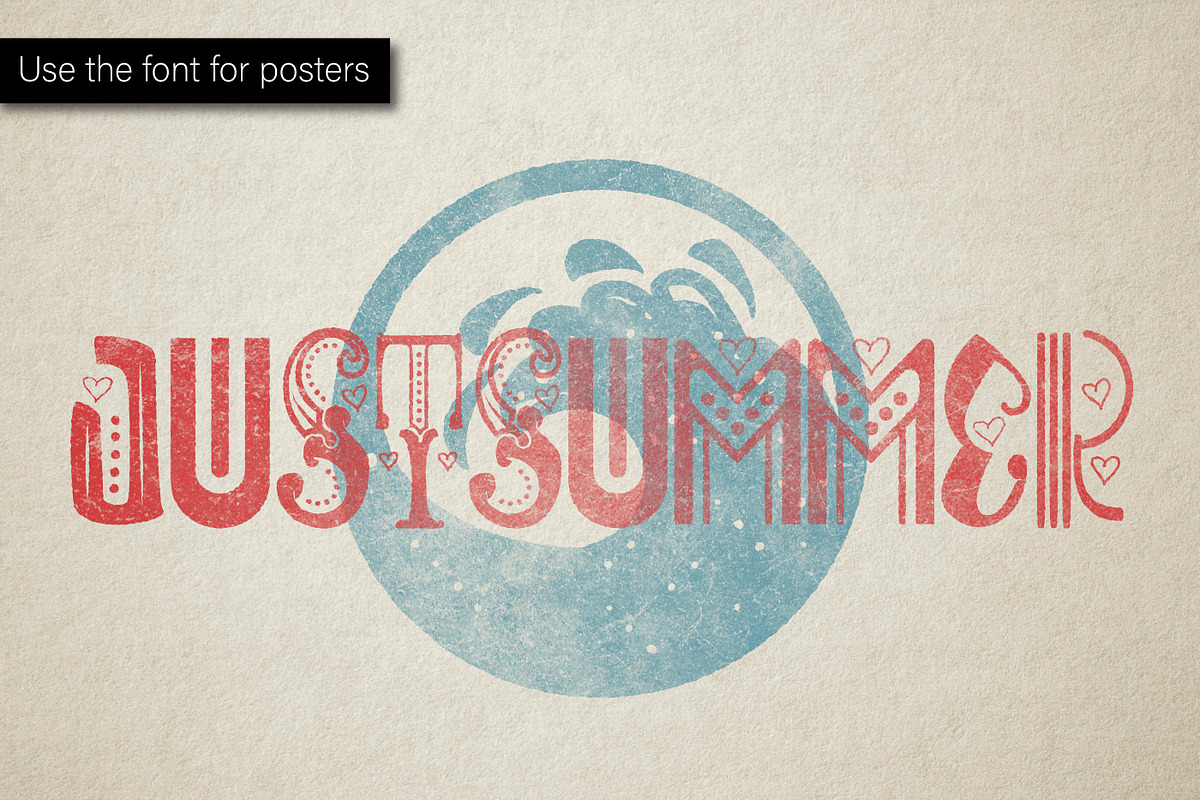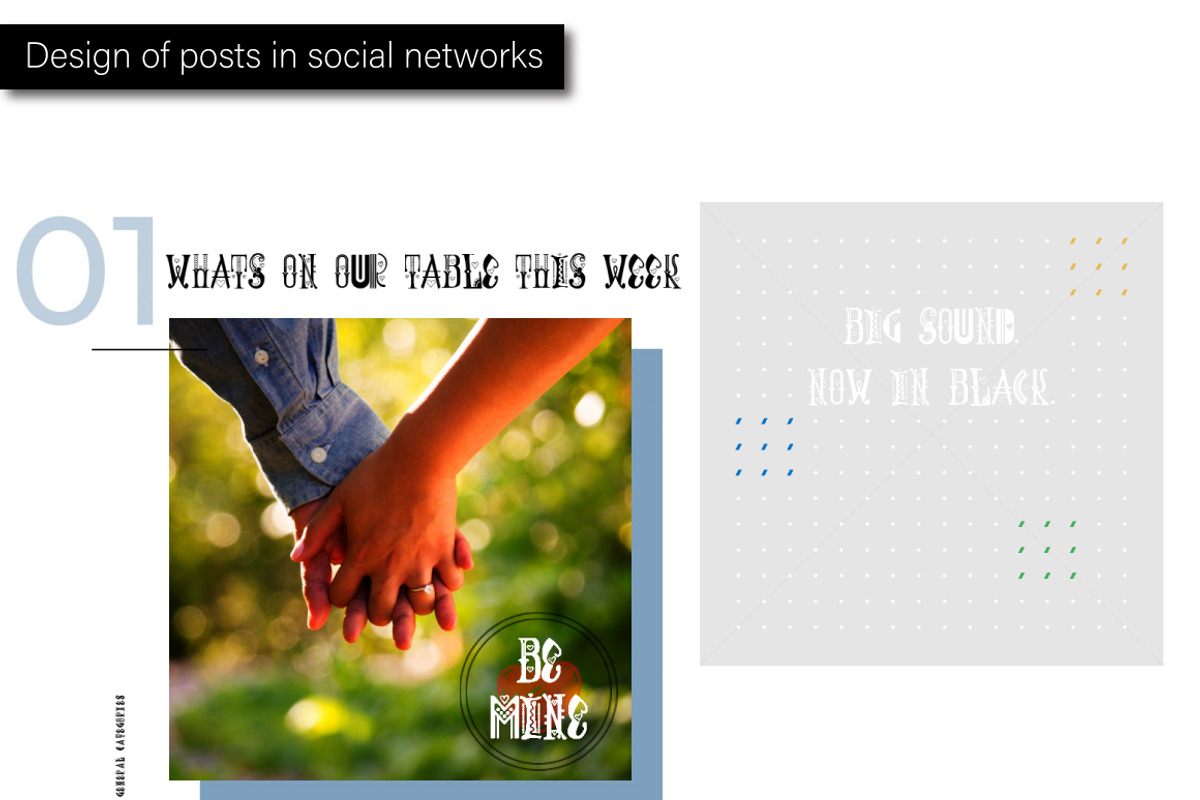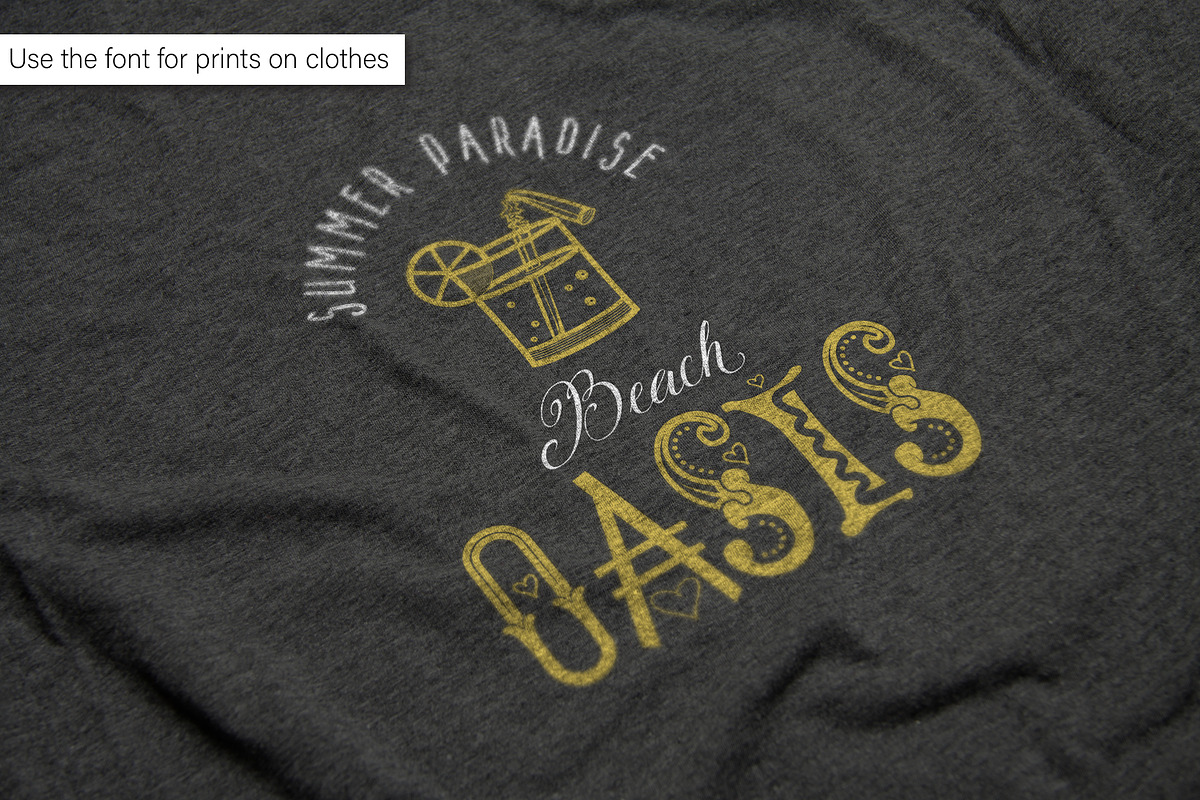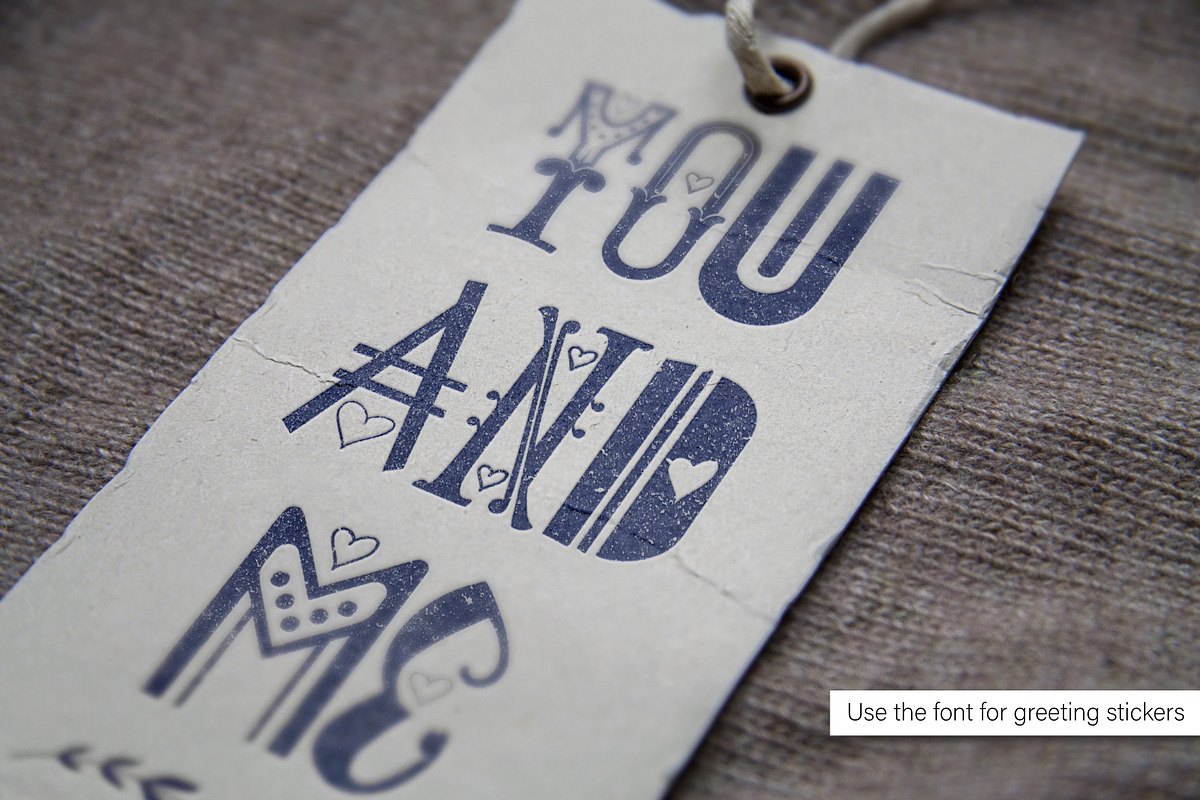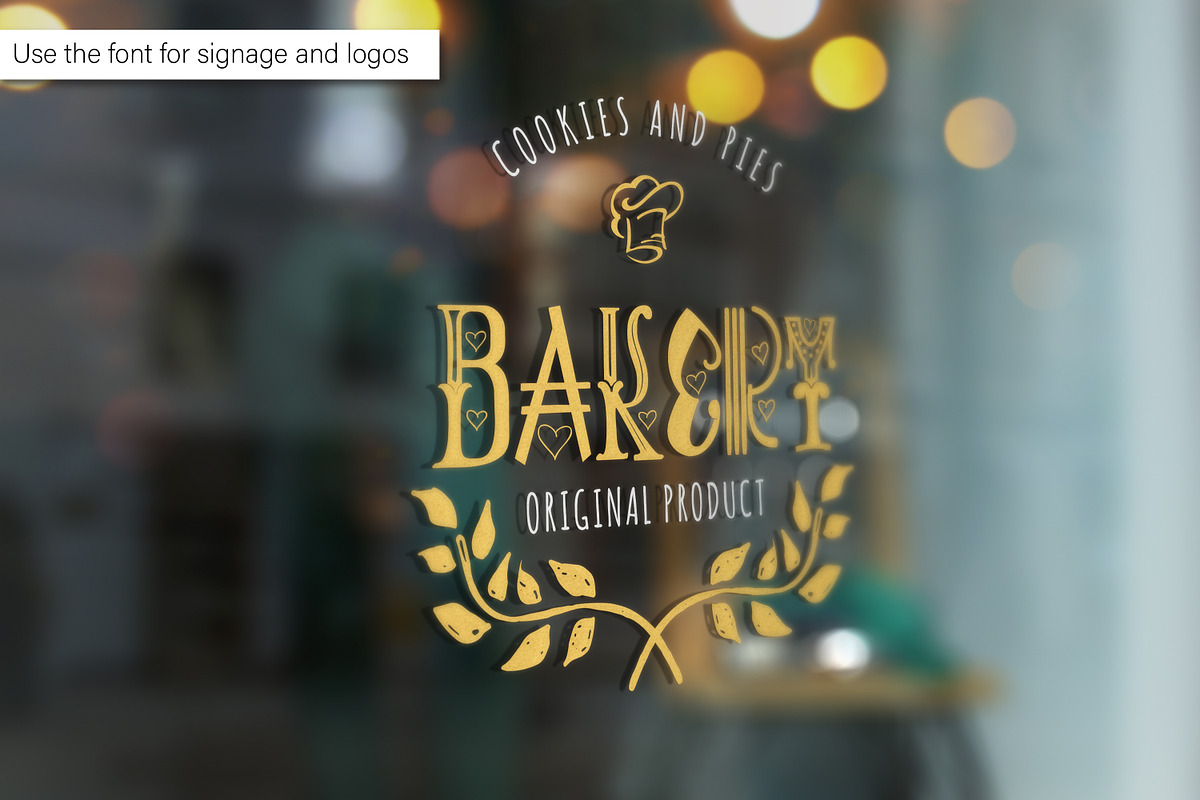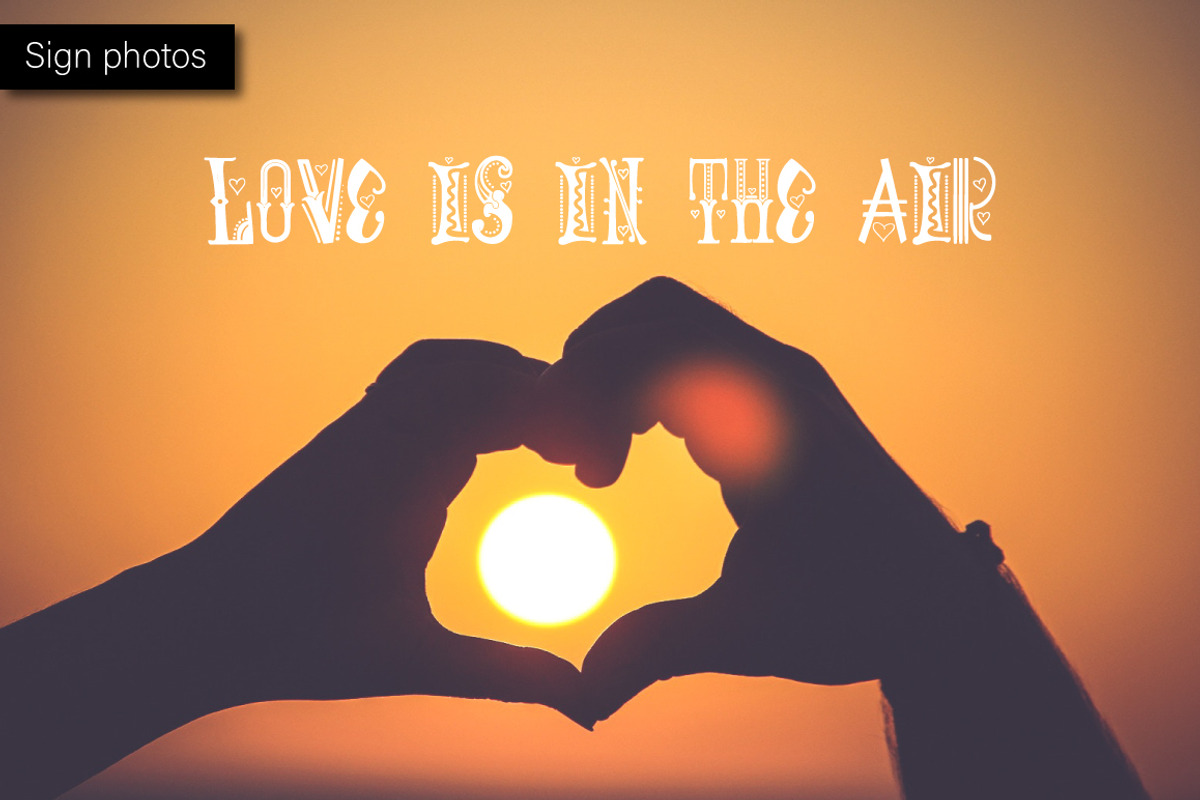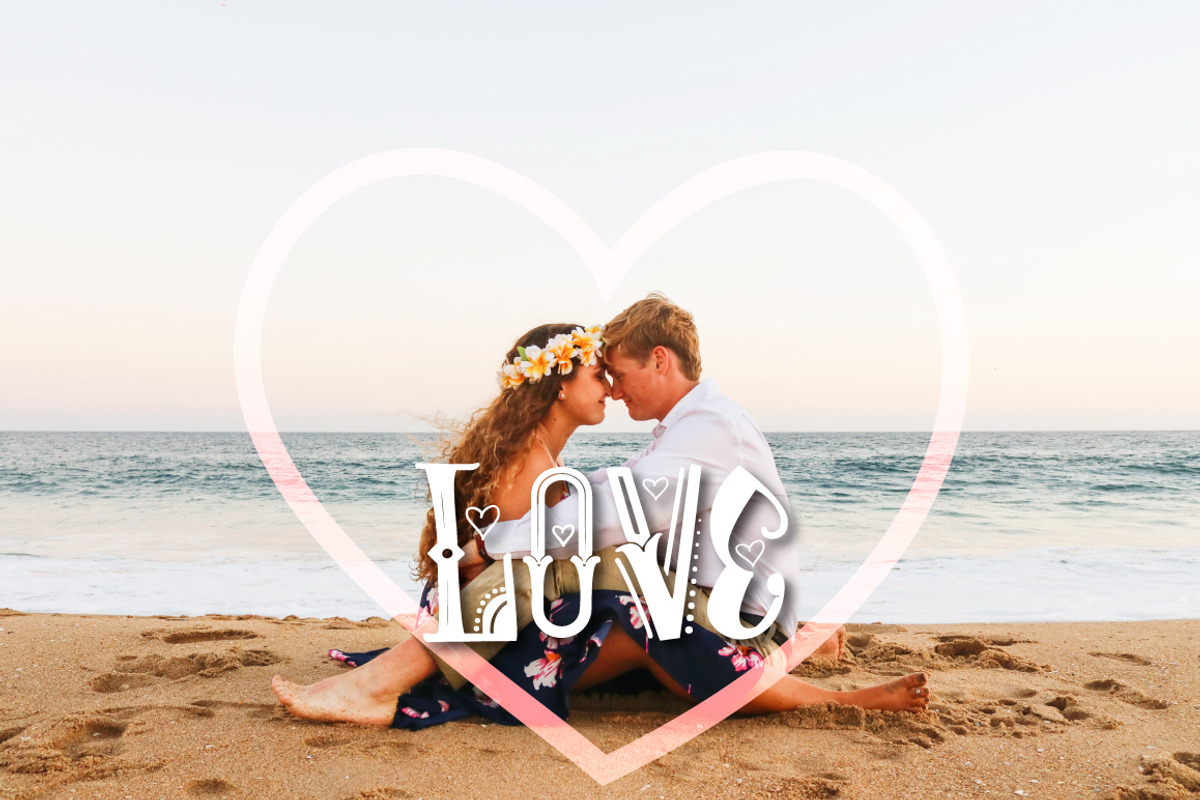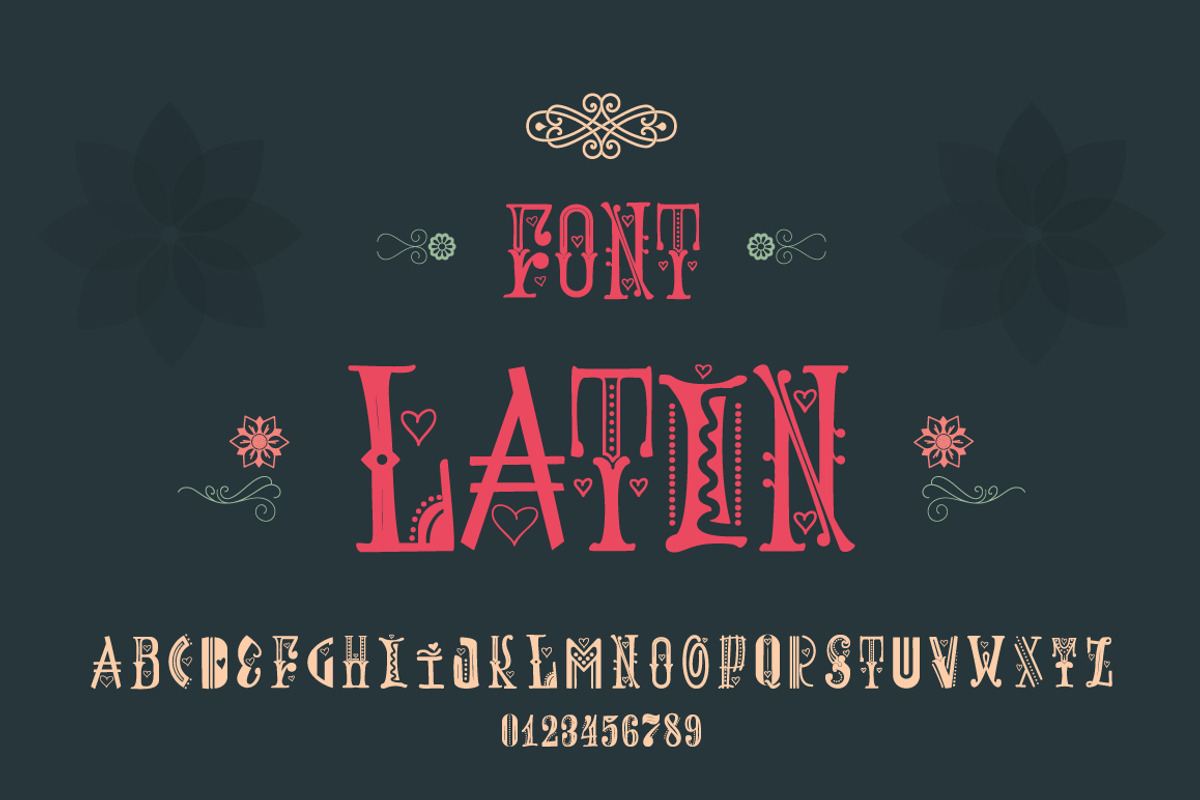
Decorative font - Spring
Decorative font Spring.
Why Decorative font - Spring is worth a look
Decorative font - Spring by zao4nik fits naturally into Branding, posters, packaging, typography.